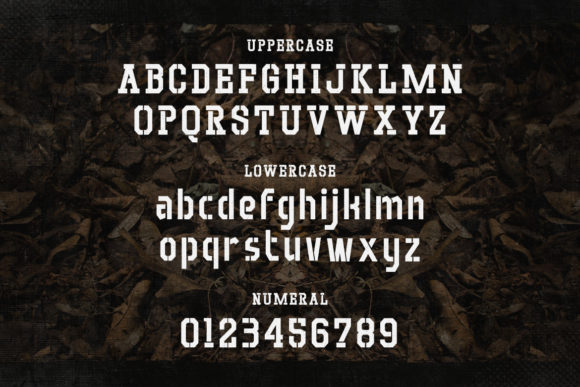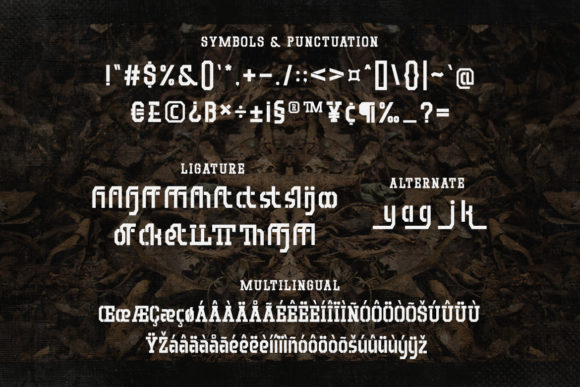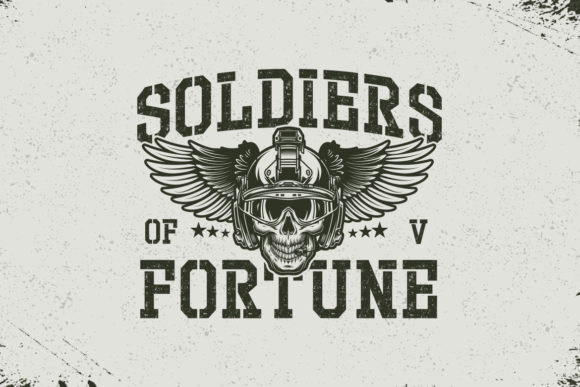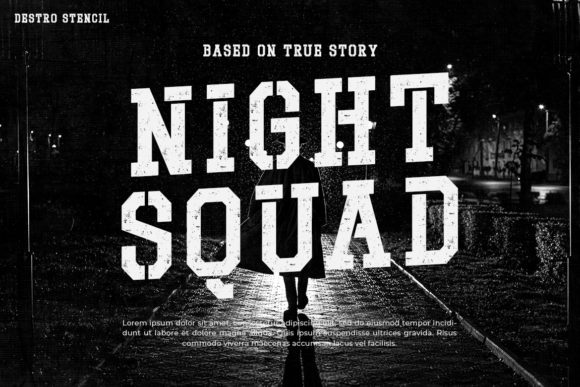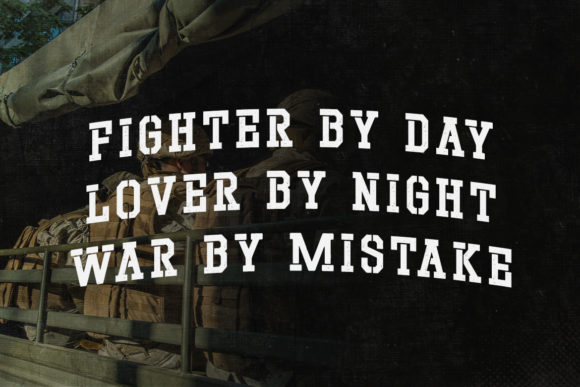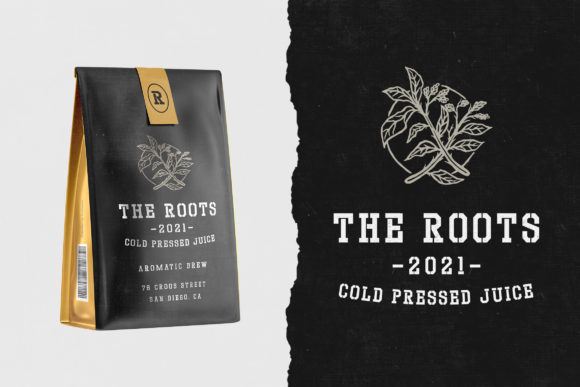
Introducing Destro Font: The Ultimate Retro-Styled Display Font
Are you tired of using the same old fonts in your designs? Look no further! Destro Font is here to revolutionize your creative projects with its cool, bold, and retro-styled display font. This amazing font is not only visually stunning but also incredibly versatile, making it perfect for designers and crafters alike.
What Makes Destro Font So Special?
Destro Font is a game-changer in the world of typography. Its unique blend of retro flair and modern style makes it stand out from the crowd. Here are just a few reasons why Destro Font should be your go-to font for your next project:
- PUA Encoded: Destro Font is PUA (Private Use Area) encoded, which means you can access all of the glyphs and swashes with ease. This encoding allows you to unlock the full potential of the font, giving you endless creative possibilities.
- Bold and Eye-Catching: Destro Font is a bold and eye-catching font that’s perfect for making a statement. Its thick lines and retro-style lettering make it ideal for headlines, titles, and other display text.
- Retro-Styled: Destro Font has a distinctly retro feel that’s reminiscent of classic 80s and 90s design. Its nostalgic charm makes it perfect for projects that require a vintage vibe.
- Highly Versatile: Destro Font is incredibly versatile, making it suitable for a wide range of projects, from posters and flyers to logos and branding materials.
How to Use Destro Font in Your Designs
Using Destro Font in your designs is easy! Here are a few tips to get you started:
- Pair it with Other Fonts: Destro Font pairs well with a variety of other fonts, including sans-serif fonts like Arial and Helvetica. Experiment with different font combinations to find the perfect look for your project.
- Experiment with Swashes: Destro Font’s PUA encoding gives you access to a range of swashes and glyphs that can add an extra touch of personality to your designs.
- Use it for Headlines and Titles: Destro Font is perfect for headlines and titles, where its bold and eye-catching style can really make an impact.
Why Designers and Crafters Love Destro Font
Destro Font has quickly become a favorite among designers and crafters, and for good reason. Here are just a few reasons why:
- Unique Style: Destro Font’s retro-styled design makes it a standout in the world of typography. Its unique style adds a touch of personality to any project.
- Easy to Use: Destro Font is incredibly easy to use, even for those who are new to design. Its PUA encoding makes it simple to access all of the glyphs and swashes.
- High-Quality: Destro Font is a high-quality font that’s designed to deliver exceptional results. Its bold and clear lettering makes it perfect for both print and digital projects.
In conclusion, Destro Font is an amazing retro-styled display font that’s perfect for designers and crafters alike. Its unique blend of style, versatility, and ease of use makes it a must-have for any creative project. With its PUA encoding, bold and eye-catching style, and highly versatile design, Destro Font is sure to become your go-to font for years to come.